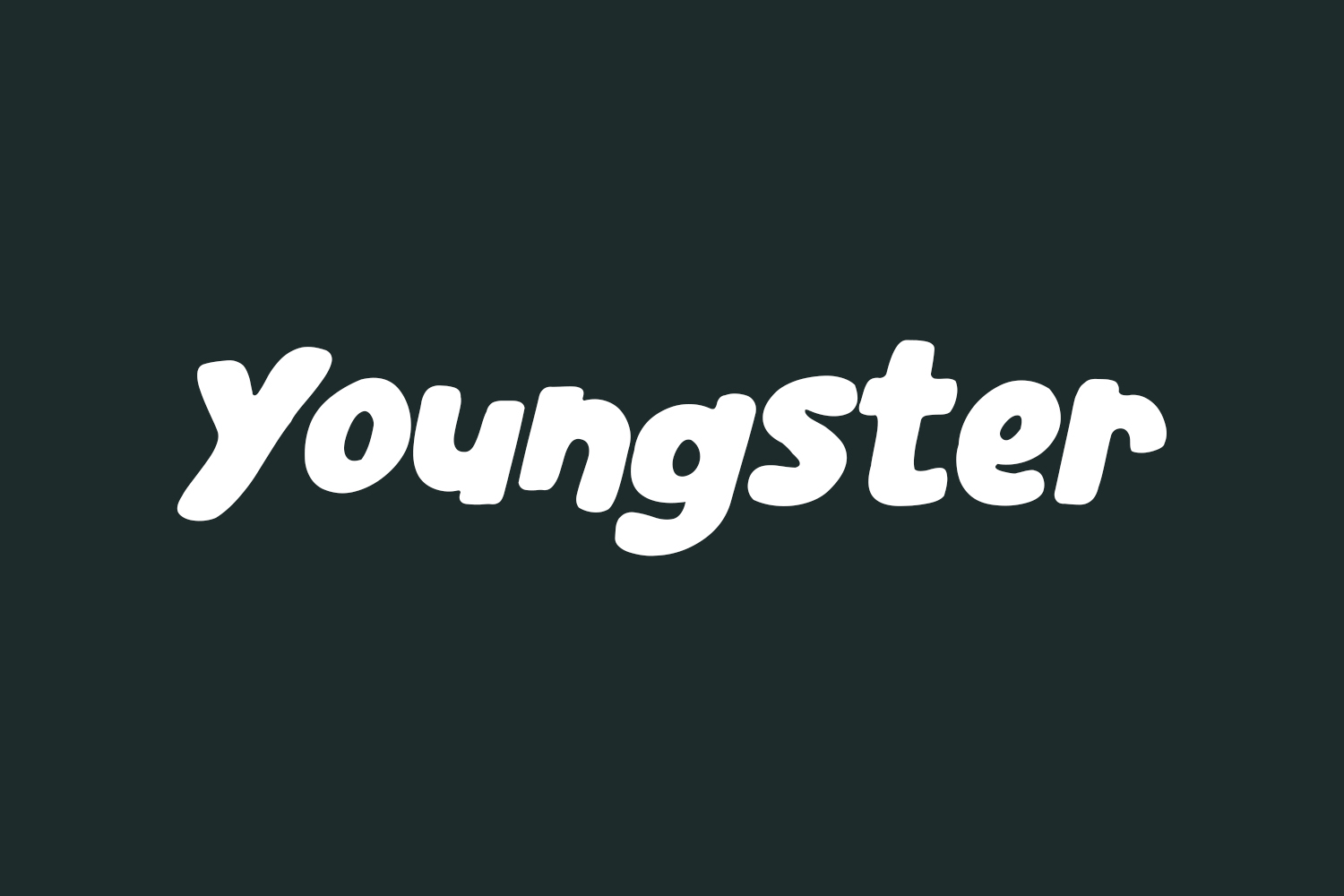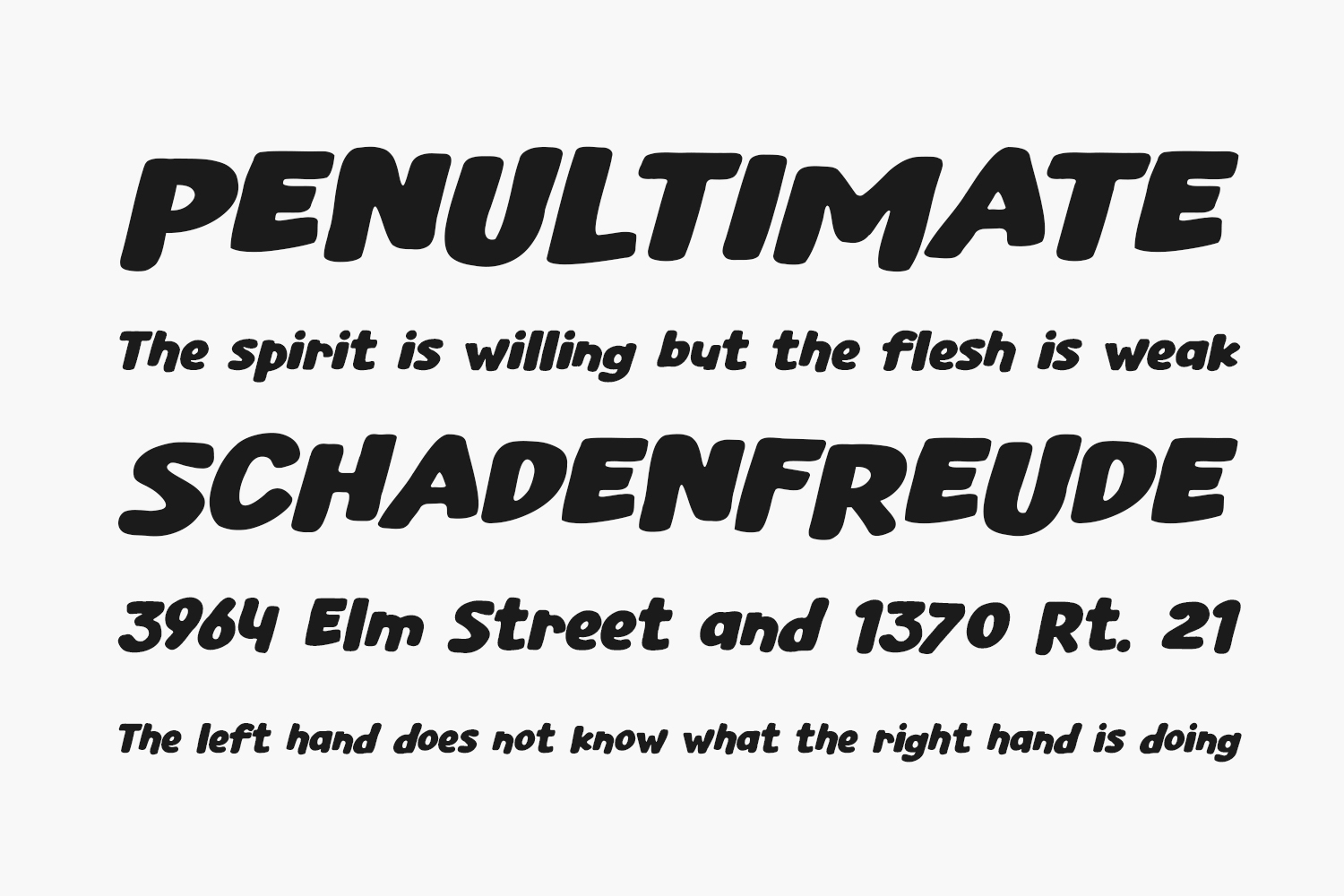
Youngster Free Font is a playful and charming display font ideal for children’s books, online games, stationery, school supplies, posters, movie titles, YouTube covers, thumbnails, social media posts, and beyond. Enrich your font library with this delightful addition and let your creativity soar. Youngster Free Font is free for personal use only. Please purchase the full version for commercial use.
Designed by Pinisiart